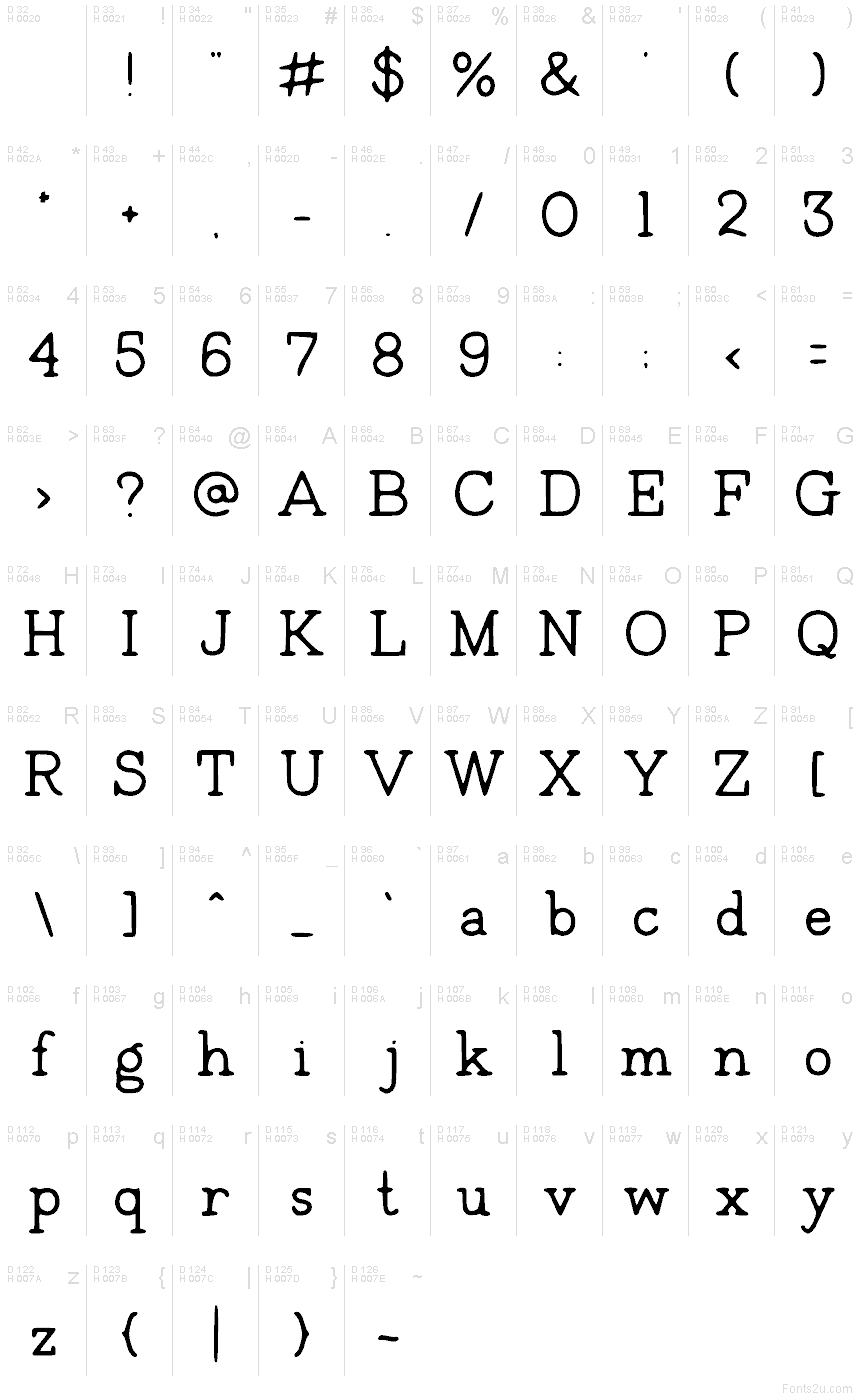
France
France font by Graphicfresh is a free handwritten serif typeface. Its inky, softly bruised edges and gentle wobble give it a warm, letterpress feel—like a well-worn typewriter on textured paper. Sturdy proportions keep it readable, while the subtle grain and irregular rhythm add a human touch that feels inviting rather than messy.
Using France, headlines and short text blocks gain character without shouting. It shines on book covers, café menus, artisanal packaging, travel posters, stationery, and quote graphics. For balance, pair this free font with a clean geometric sans and give it a touch of extra tracking at larger sizes to let the texture breathe.